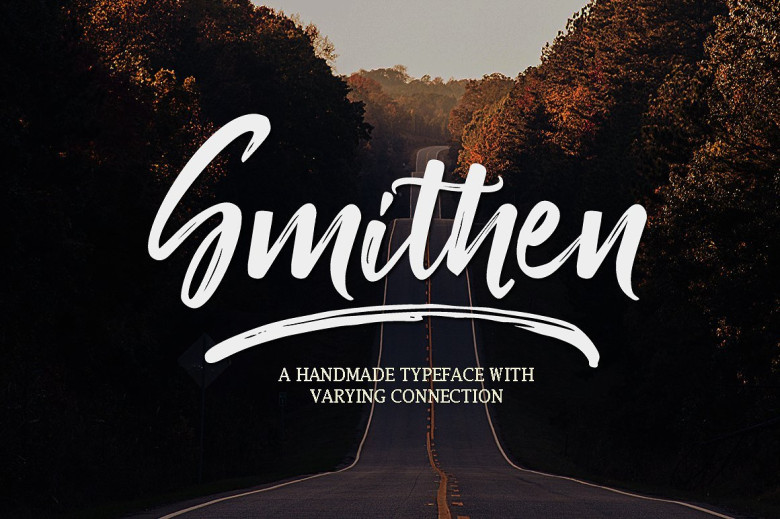
Smithen Script Font
A product designed by Youngtype. Introducing Smithen Font. Smithen is a hand brushed font created with a brush and ink, bold and irregular baseline. Contains a complete set of lowercase, uppercase, alternates, ligatures, punctuation, numbers, and multilingual support. And additional Smithen sans, working in harmony with Smithen script to create typography awesome creations. Get some inspiration from the preview above. Contains a complete set of lowercase, uppercase, ligatures, punctuation, numbers, and multilingual support.